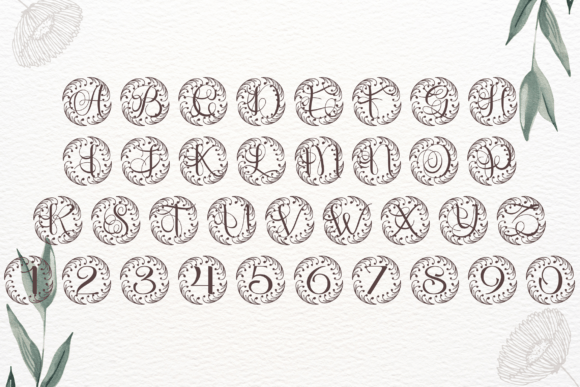
Circulaflora Monogram Font: Elevate Your Brand with Botanical Elegance
In the world of typography, fonts play a crucial role in defining the identity of a brand. Among the myriad of fonts available, the Circulaflora Monogram Font stands out for its unique blend of modern sophistication and natural charm. This article delves into the features, applications, and benefits of using the Circulaflora Monogram Font in various design projects.
What is Circulaflora Monogram Font?
Circulaflora Monogram is a modern botanical monogram font that features uppercase letters encircled by elegant floral rings. Designed with balance and sophistication in mind, this font combines clean lines with organic beauty, making it a versatile choice for a wide range of design applications.
Key Features of Circulaflora Monogram Font
- Botanical Monogram Style: The font features uppercase letters intertwined with floral elements, creating a distinctive and elegant look.
- Modern Sophistication: With its clean lines and balanced design, Circulaflora Monogram brings a touch of modern sophistication to any project.
- Elegant Floral Rings: The encircling floral rings add a natural and organic feel to the monograms, making them perfect for botanical-themed designs.
- Versatile Usage: Ideal for personalized branding, wedding materials, packaging, and seasonal stationery.
Applications of Circulaflora Monogram Font
The versatility of the Circulaflora Monogram Font makes it suitable for various design projects. Here are some of the key areas where this font can make a significant impact:
1. Personalized Branding
For businesses looking to create a unique and memorable brand identity, Circulaflora Monogram offers a stylish solution. The fontโs elegant and botanical design can be used in logos, business cards, and letterheads to convey a sense of sophistication and natural beauty.
2. Wedding Materials
Weddings often call for elegant and thematic stationery. Circulaflora Monogram is perfect for wedding invitations, save-the-date cards, and other wedding-related materials. The fontโs romantic and botanical style complements wedding themes beautifully.
3. Packaging Design
For brands in the botanical, skincare, or floral industries, Circulaflora Monogram can enhance packaging designs. The font adds a touch of elegance and sophistication, making products stand out on store shelves.
4. Seasonal Stationery
Seasonal stationery, such as Christmas cards, Easter tags, and other holiday-themed materials, can benefit from the Circulaflora Monogram Font. Its versatile design fits various seasonal themes, adding a personalized touch to correspondence.
Benefits of Using Circulaflora Monogram Font
Choosing the right font for a design project can significantly impact the final outcome. Here are some benefits of using the Circulaflora Monogram Font:
1. Unique and Memorable
The distinctive botanical monogram style of Circulaflora ensures that your designs stand out. The combination of letters and floral elements creates a unique and memorable visual impact.
2. Enhances Brand Identity
For businesses, using a custom or unique font like Circulaflora Monogram can strengthen brand identity. It shows attention to detail and a commitment to quality, which can positively influence customer perception.
3. Versatile and Adaptable
Circulaflora Monogram is designed to be versatile. It can be used in various design contexts, from digital platforms to print materials, ensuring consistency across different media.
4. Saves Design Time
Using a pre-designed font like Circulaflora Monogram can save designers significant time. Instead of creating a custom monogram from scratch, designers can leverage the existing elegance and sophistication of this font.